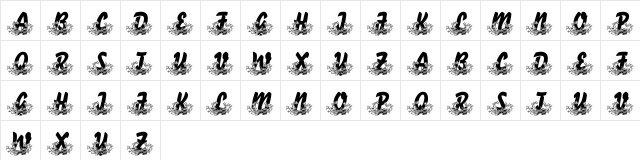
Complete LMS Bed of Ivy and Ribbons Regular glyph index. Displaying only characters natively supported by LMS Bed of Ivy and Ribbons Regular font.
LMS Bed of Ivy and Ribbons is a composed and adaptable typeface that performs quietly and consistently across a wide range of design contexts.